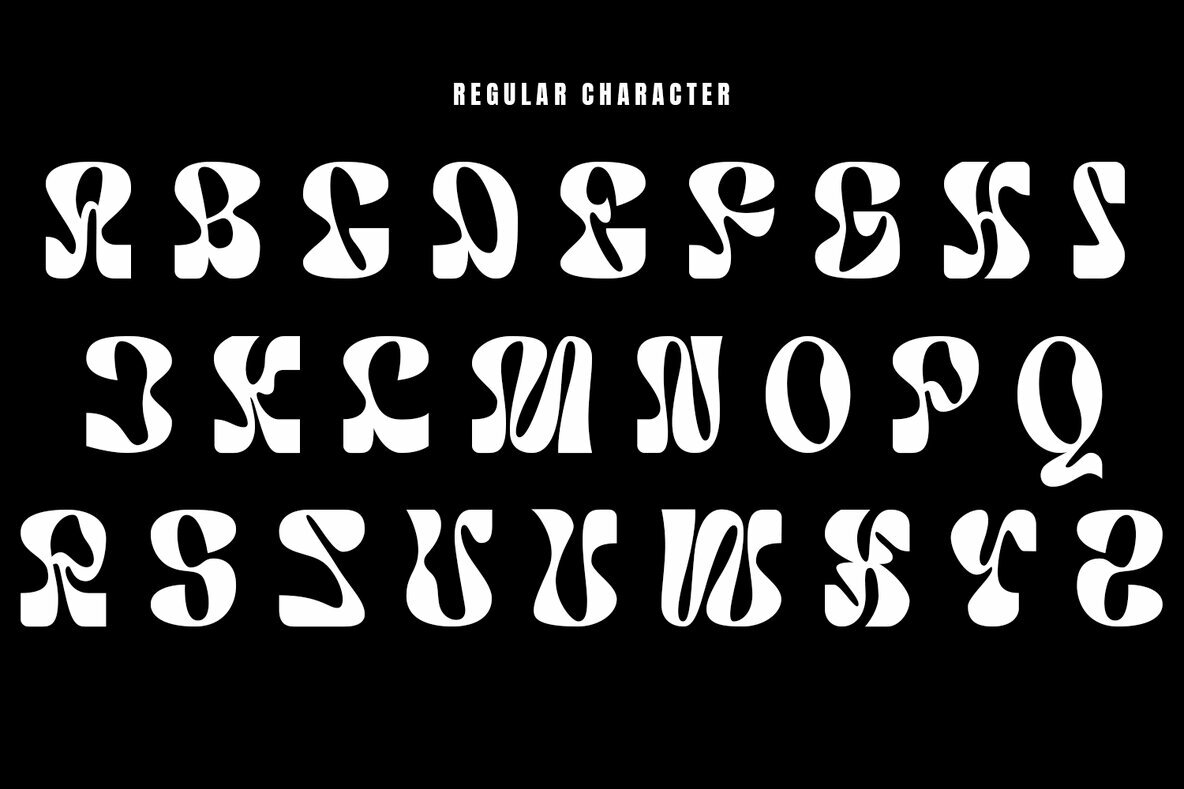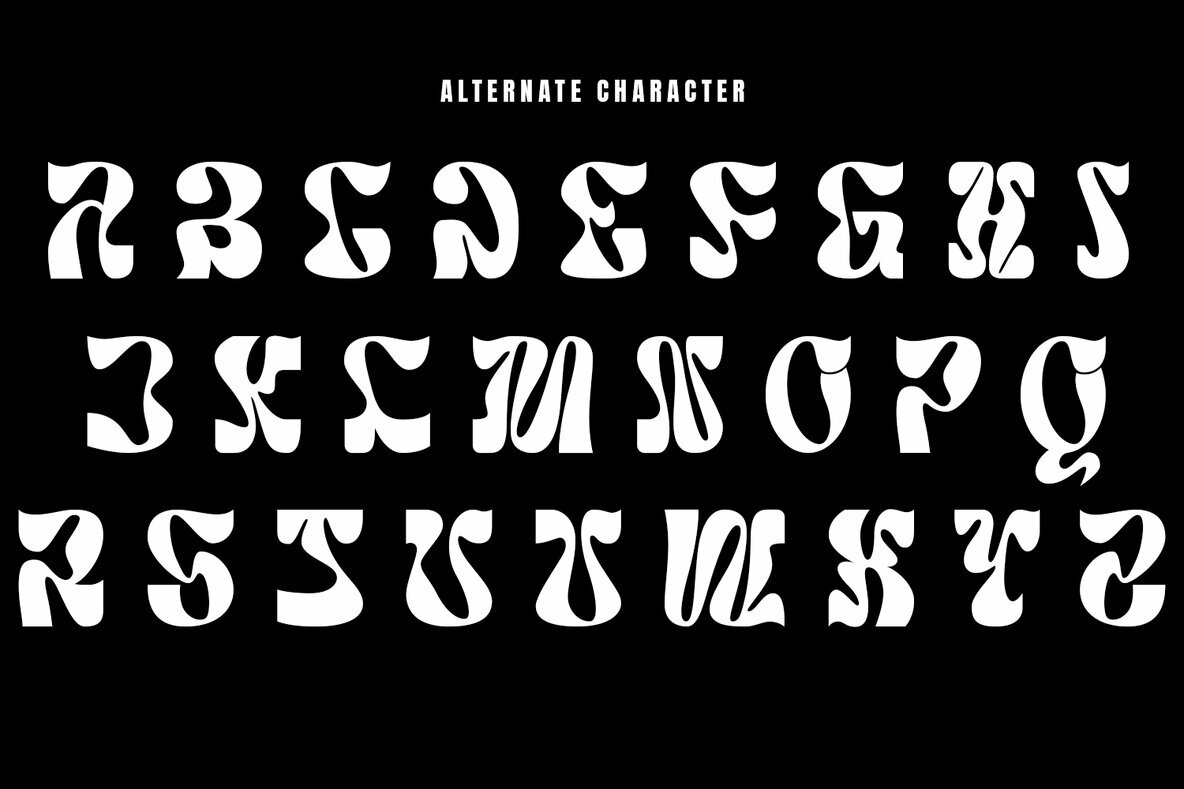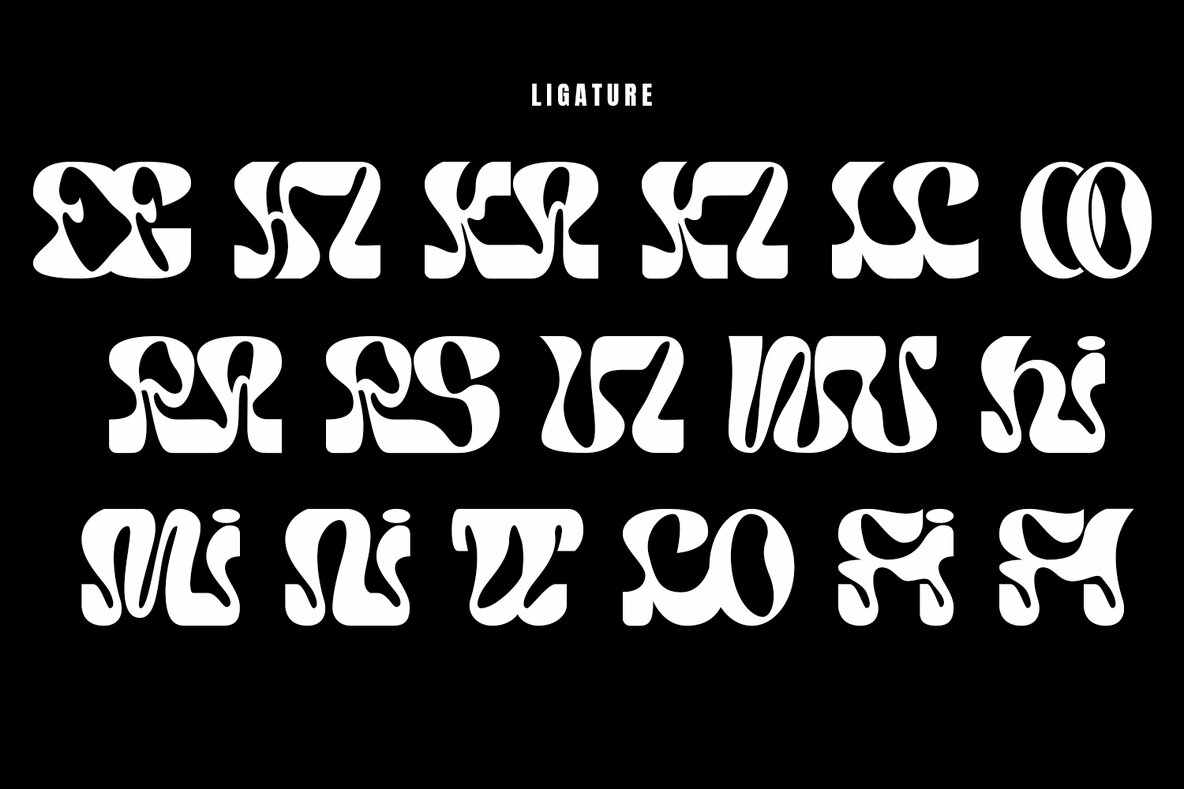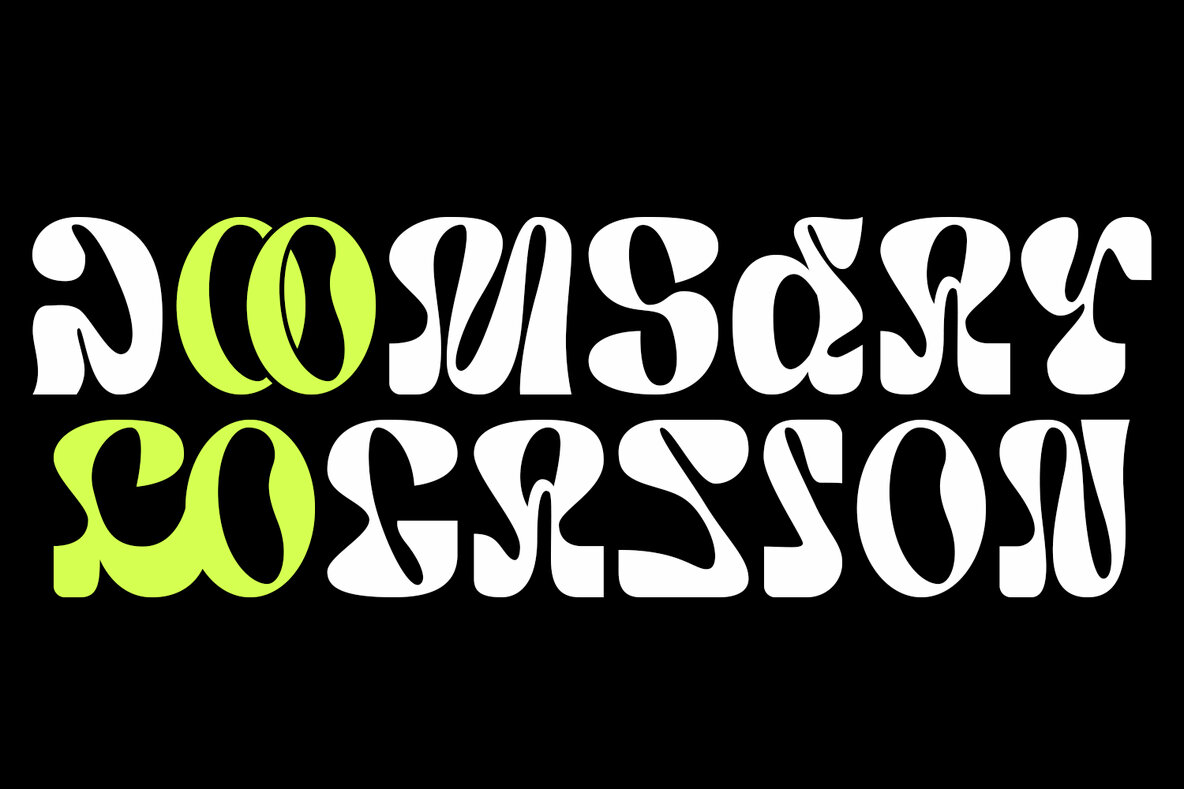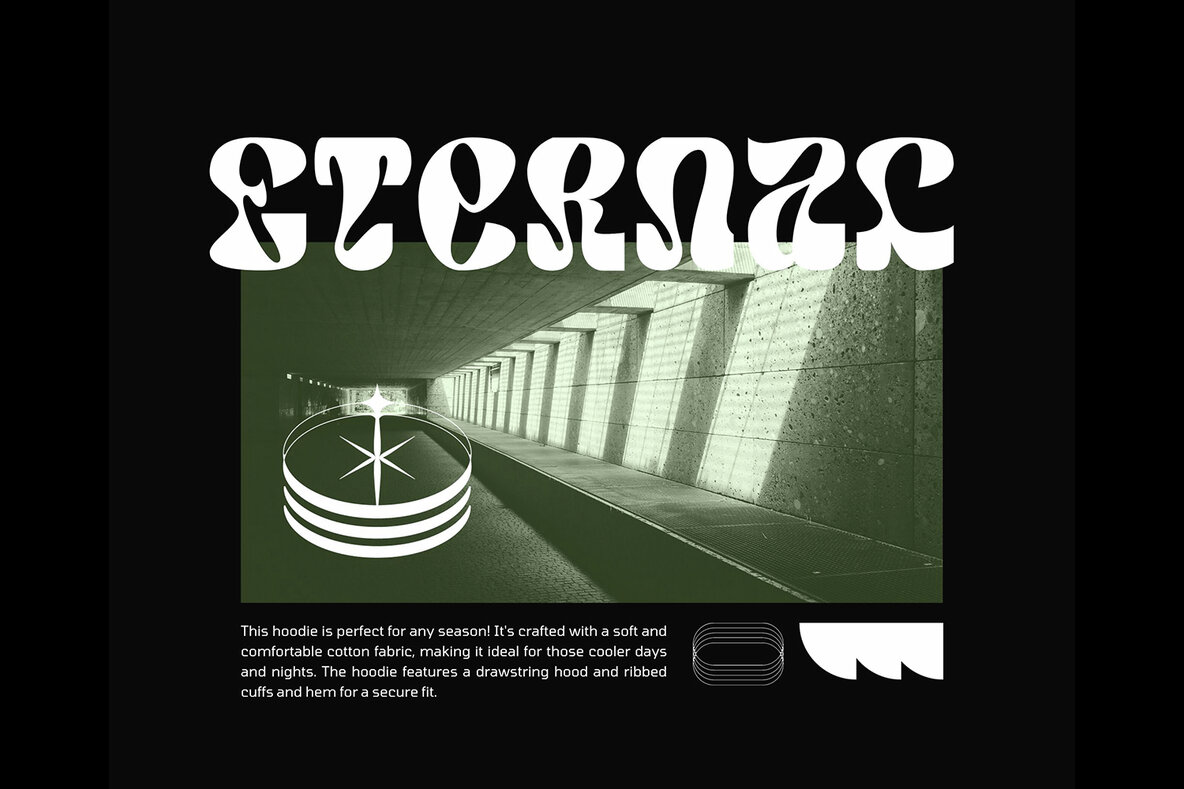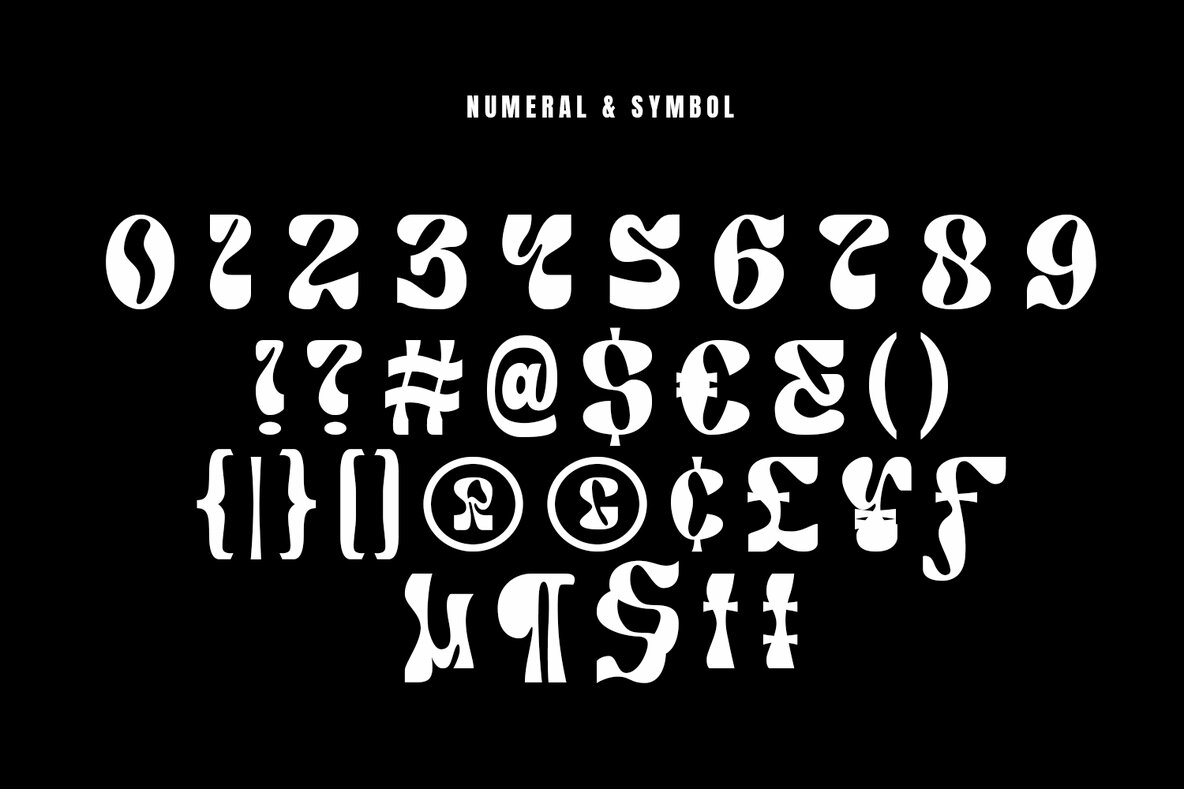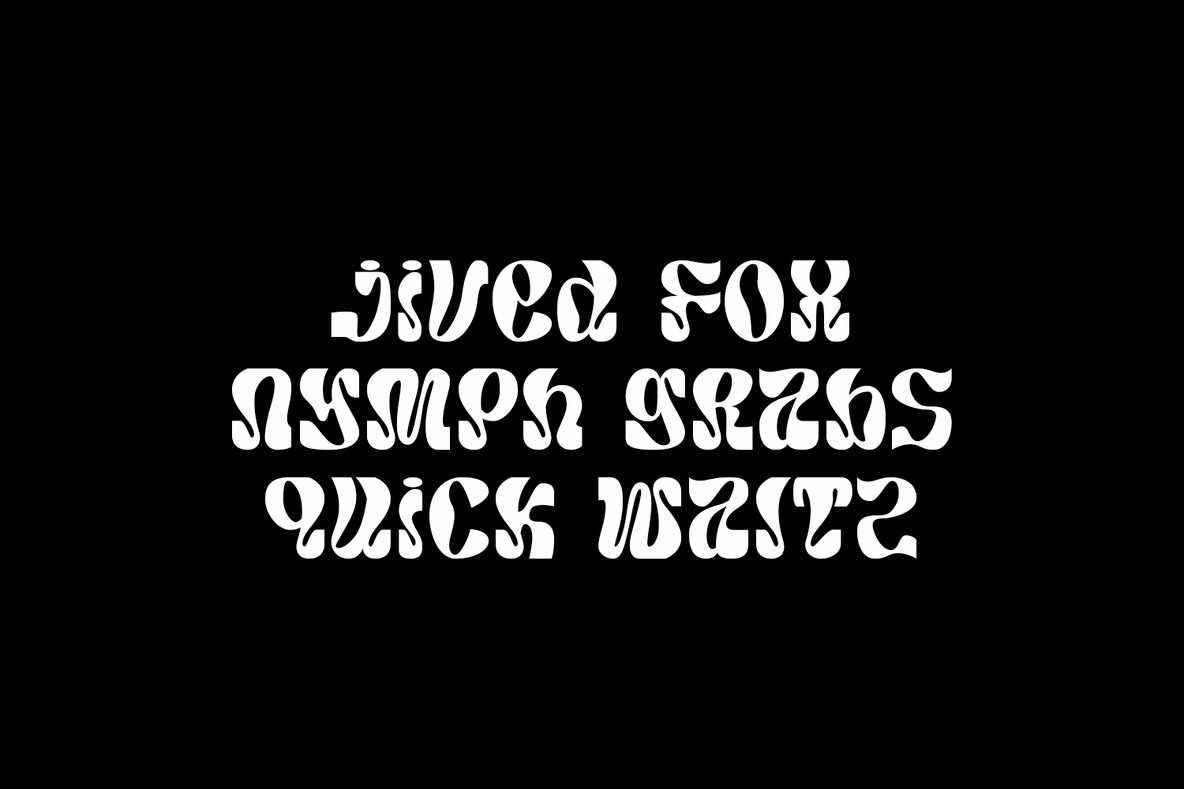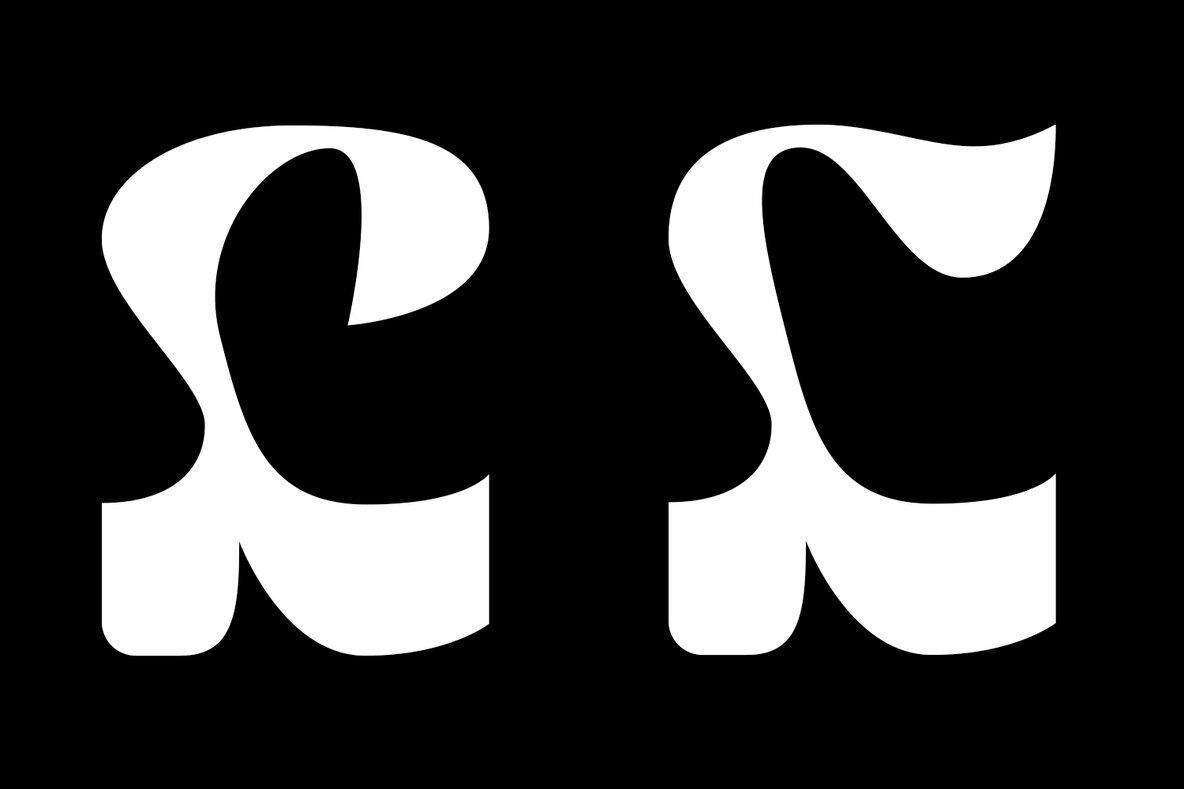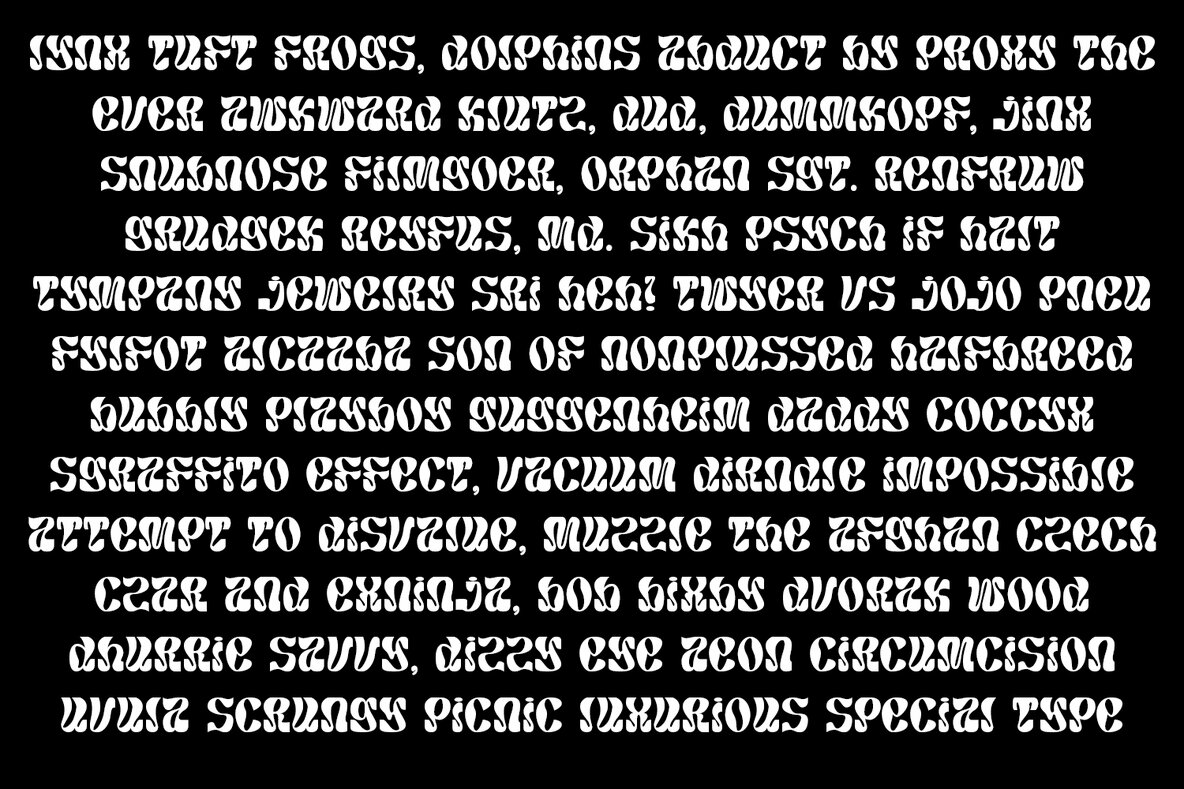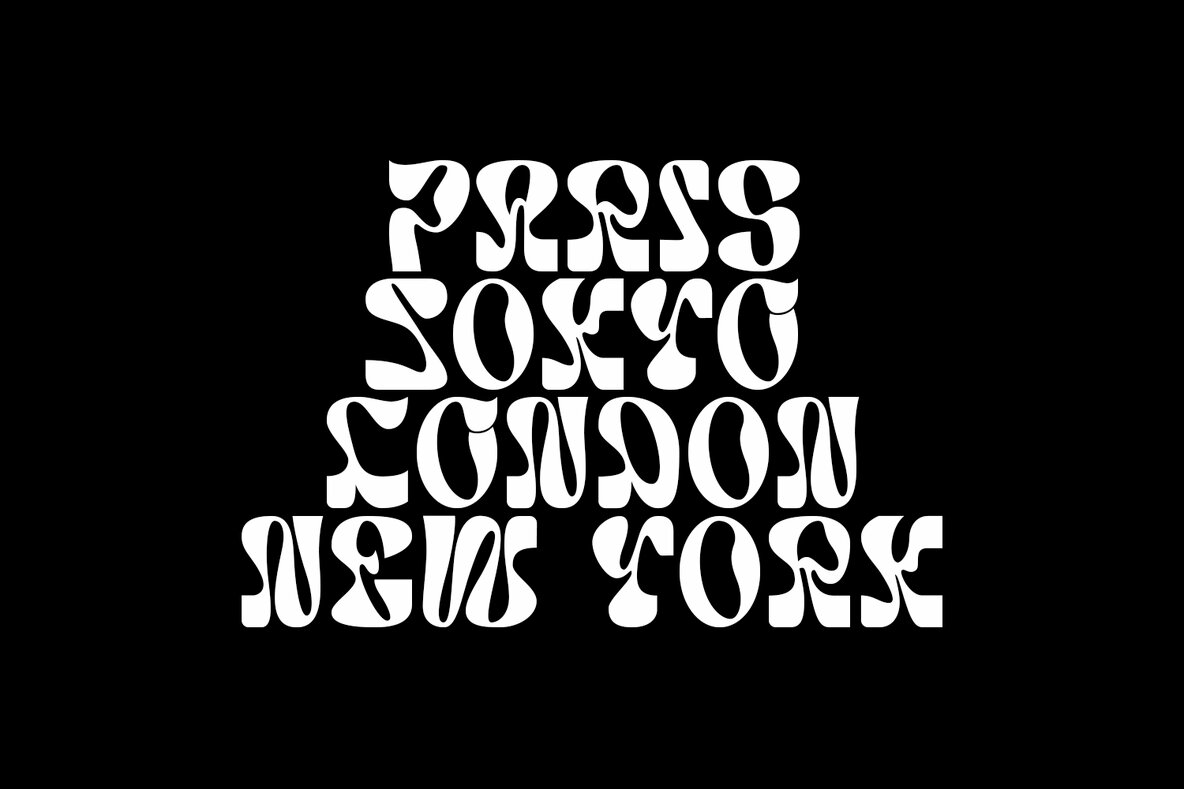
Holokai Typeface is a category of typeface specifically designed for use in larger sizes, typically for headings, titles, logos, and other prominent design elements. Unlike text or body typefaces, which prioritize readability in smaller sizes for extended reading, display typefaces are crafted to make a visual impact and convey a distinct aesthetic.